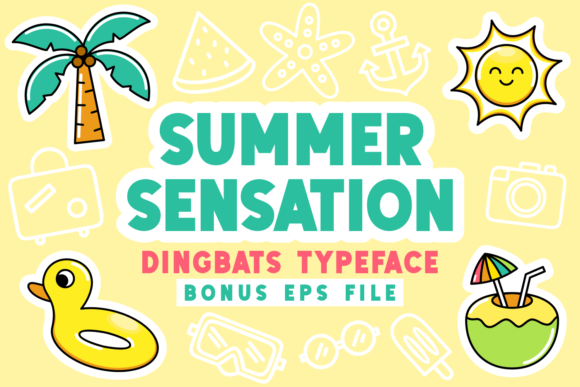
Step into a world of whimsy and charm with our enchanting Summer Sensation font! This adorable dingbats collection is a playful masterpiece, perfect for adding a touch of sweetness and fun to all your creative endeavors.
Indulge in the carefree spirit of summer with each letter and symbol. The Summer Sensation font dances across your screen, evoking memories of lazy afternoons and sun-drenched days. Its cool and refreshing aesthetic will instantly uplift your mood, adding a spark of joy to every project.
Whether you're crafting personalized letterheads, creating eye-catching titles, or designing whimsical stationery, the Summer Sensation font will sprinkle a touch of magic into your creations. Its unique and captivating design will make your words come alive, leaving a lasting impression on everyone who encounters them.
Join the chorus of satisfied creatives who have embraced the Summer Sensation font as their go-to font for any occasion. Let its cheerful spirit inspire your imagination and transform your ordinary designs into extraordinary works of art.